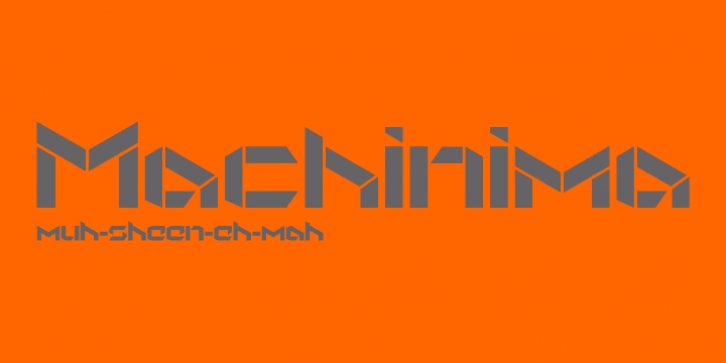
StealWerks is a novelty and stencil font family. This typeface has six styles and was published by The Northern Block.
An industrial, mechanical font, strongly influenced by the British Steel Industry
& heavy machinery. StealWerks was forged to give a solid impact.